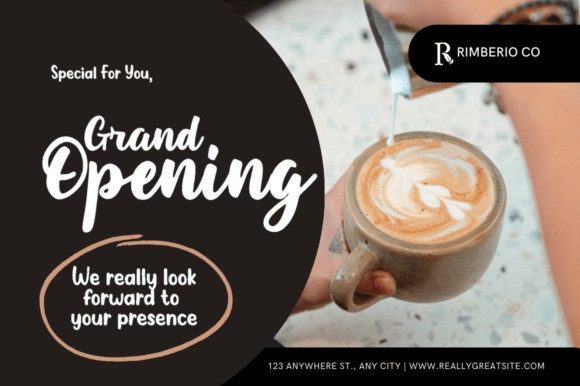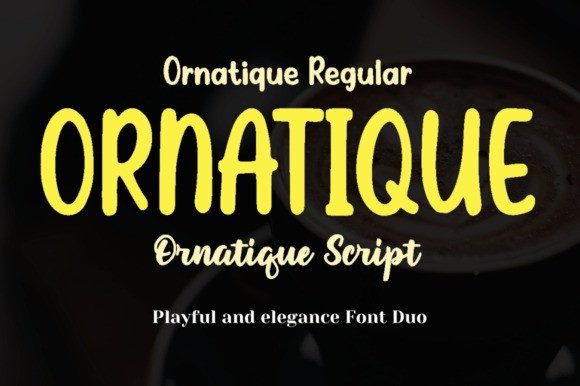
Ornatique Font Duo
Ornatique Font Duo combines two perfectly balanced styles: Ornatique Regular and Ornatique Script. The Regular version offers a bold and playful look, while the Script version adds a touch of elegance and flow. Together, they create a versatile pairing for logos, invitations, posters, branding projects, and quotes. With its smooth handmade details and easy readability, Ornatique Duo brings a modern yet warm personality to every creative design. Perfect for designers who love stylish and unique typography!